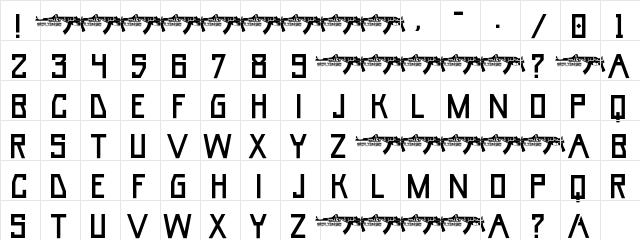
Umar Base Free Font
Umar Base Umar Base
Style: Umar Base
Foundry: Mikrojihad
Designer: Mikrojihad
Design Context for Umar Base
Umar Base is a composed and adaptable typeface that performs quietly and consistently across a wide range of design contexts.